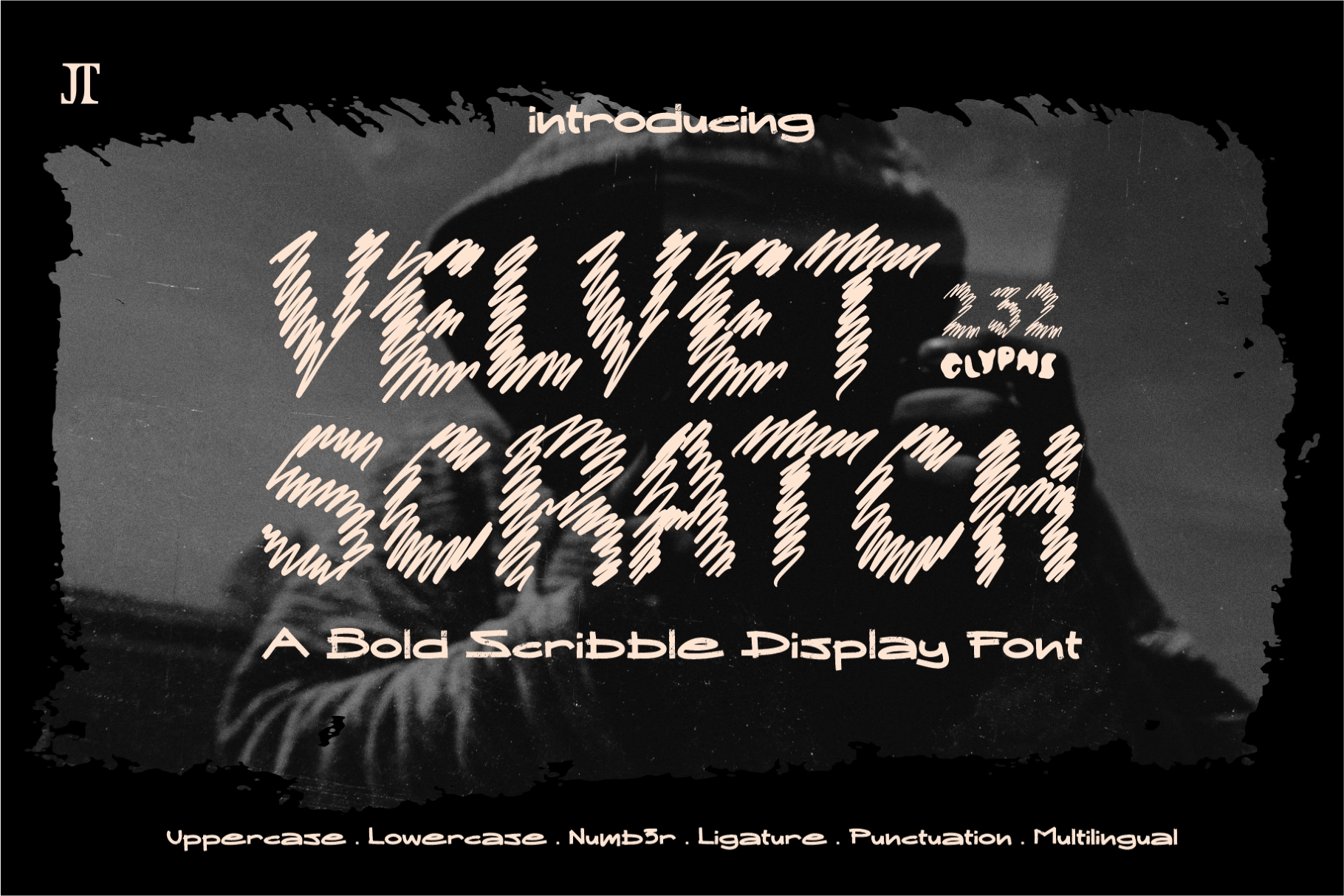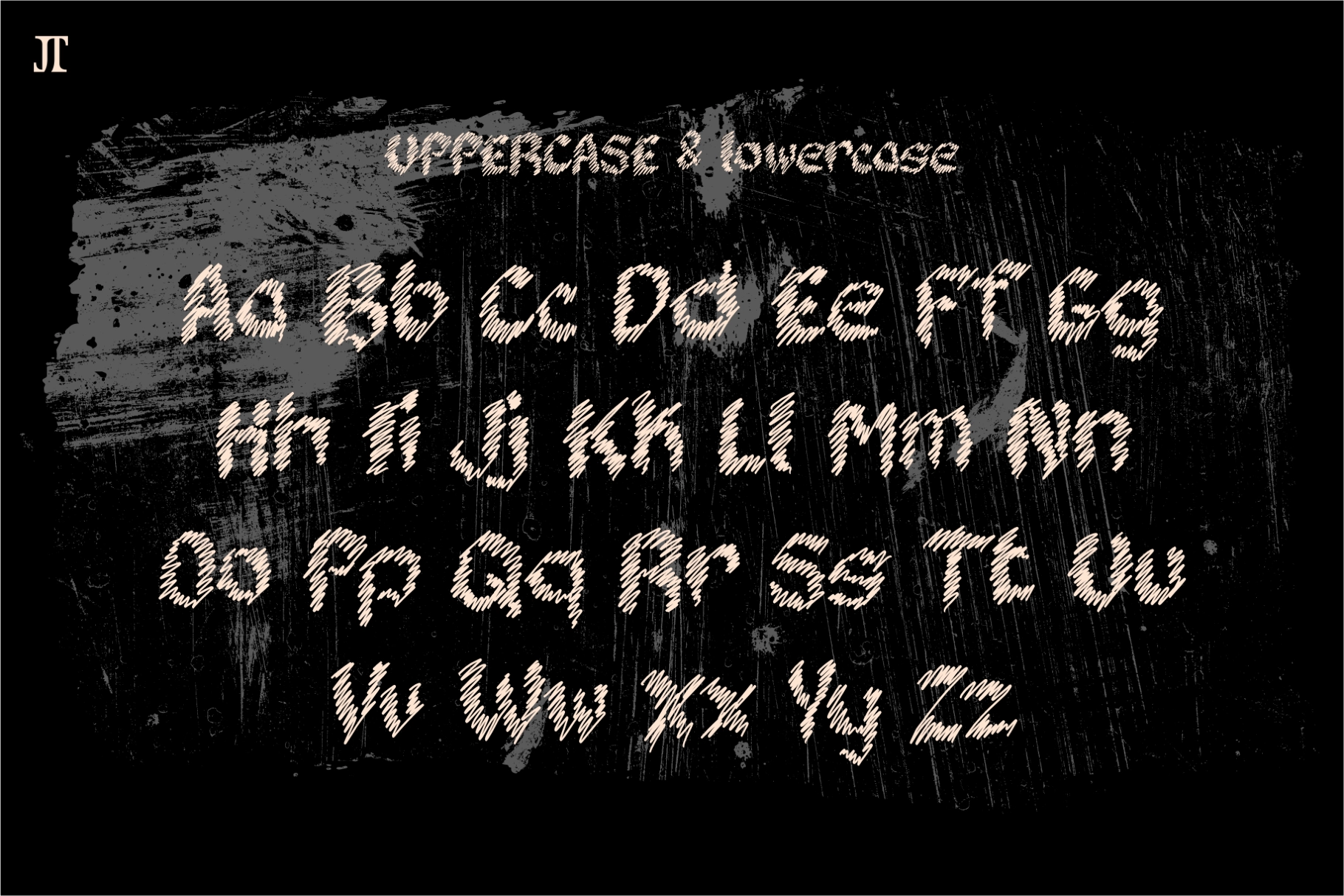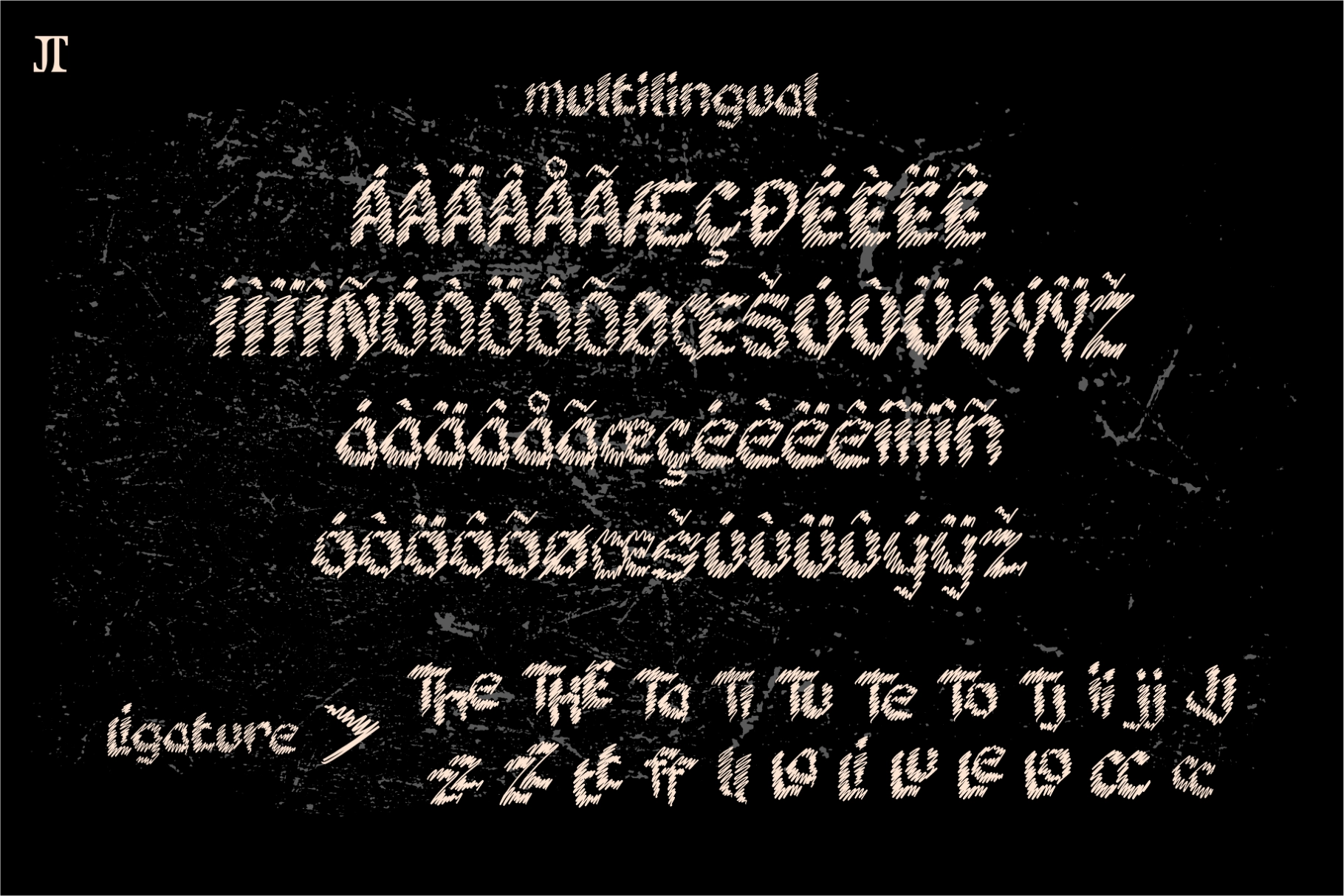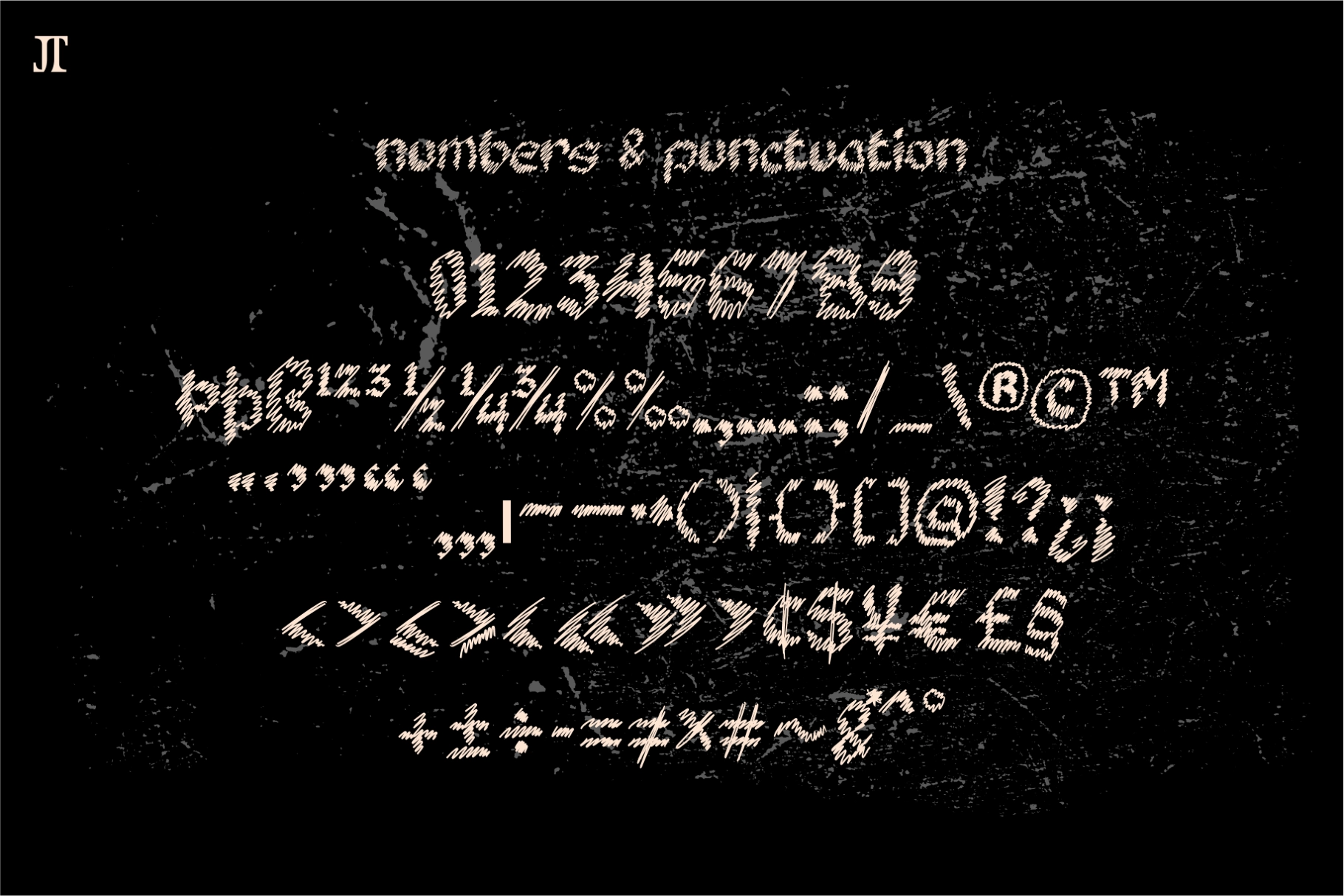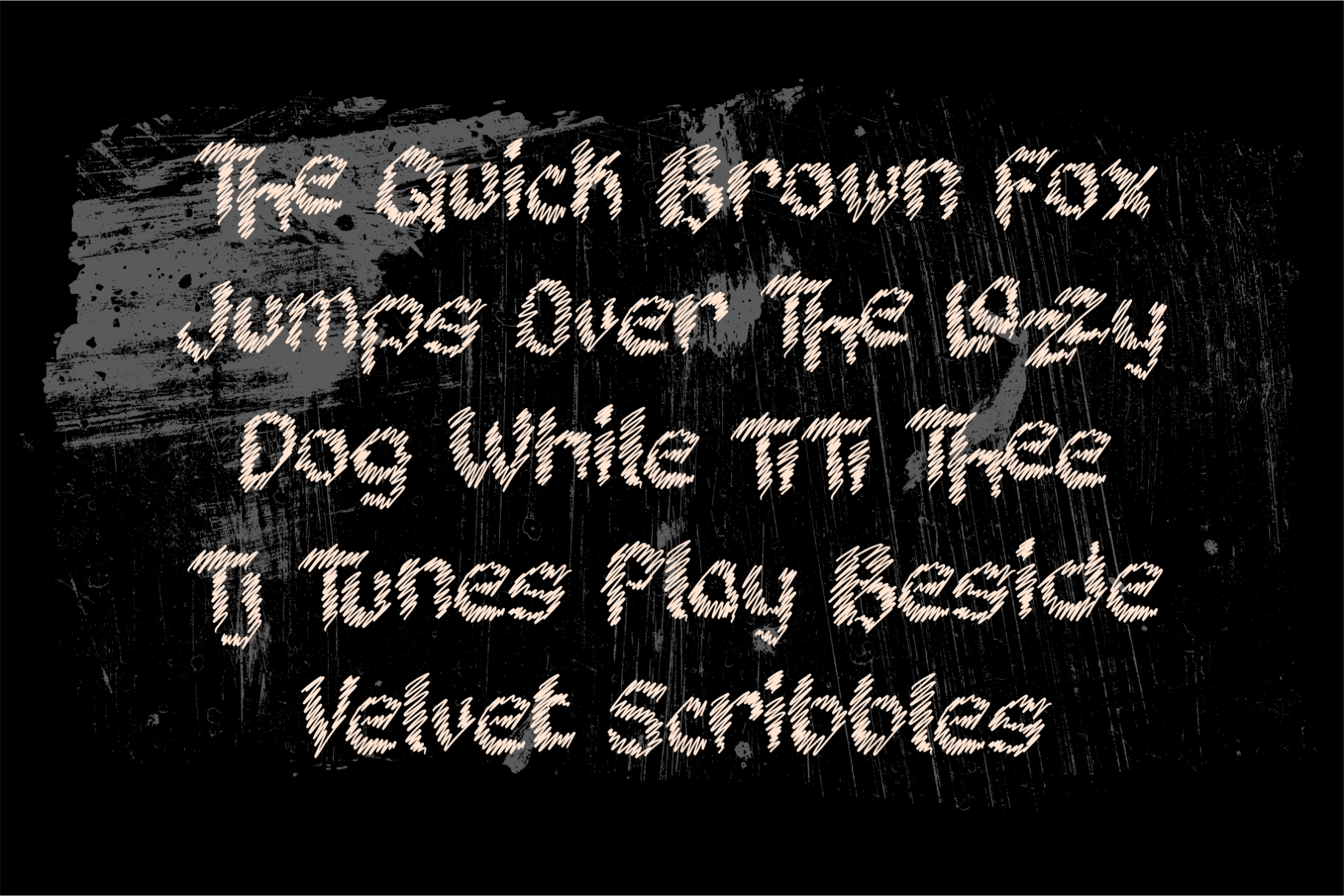
Velvet Scratch - Scribble Display Font
Velvet Scratch
This bold display typeface has a scratched scribble texture, rough hand-drawn strokes , and an expressive rhythm made for loud visual work. Its uneven letterforms bring raw energy to headlines, giving posters, covers, and streetwear graphics a sharp handmade attitude.
Velvet Scratch is a strong fit for gig posters, album covers, streetwear branding, zine titles, editorial headlines, social media graphics, skate graphics, merch designs, event flyers, art prints, packaging, creative logos, and more. The textured construction gives each word a restless, sketchbook-born look without losing the impact needed for display typography.
- Rough Scribble Texture
- Handcrafted Letterforms